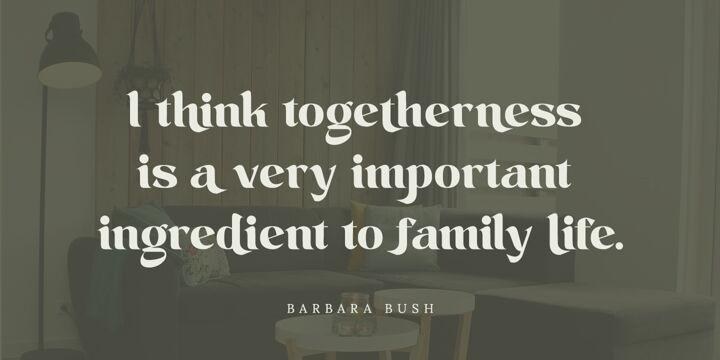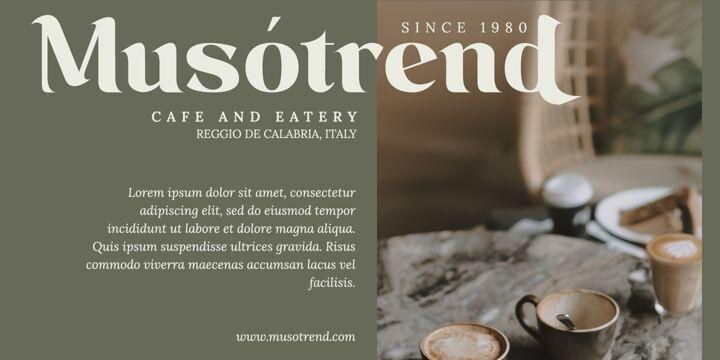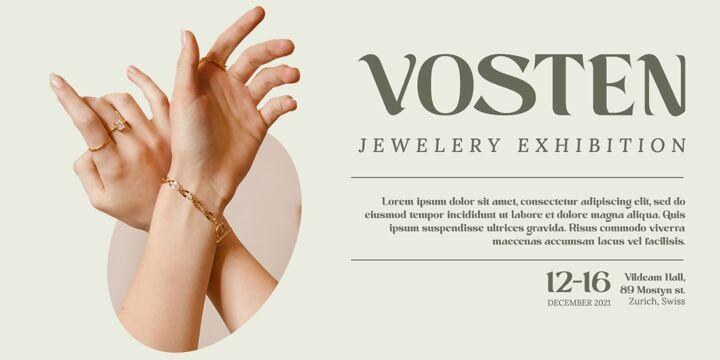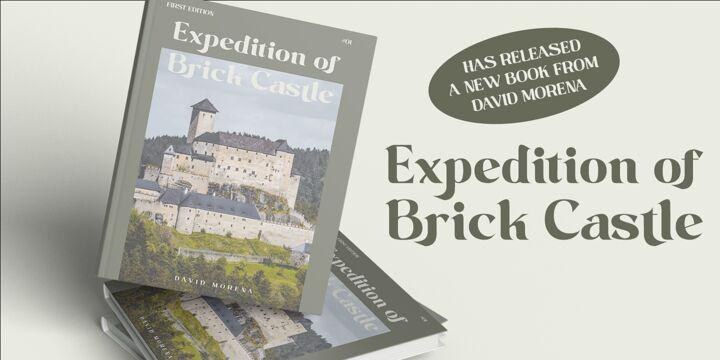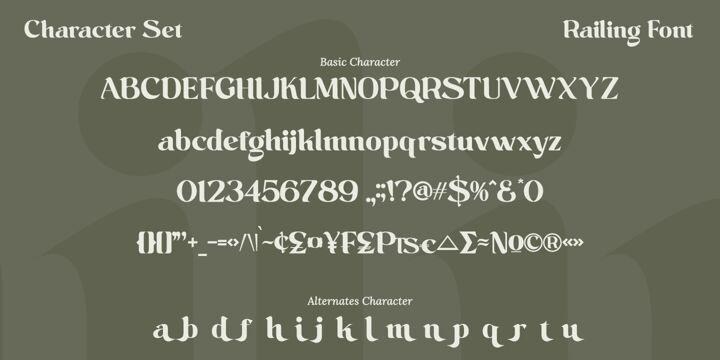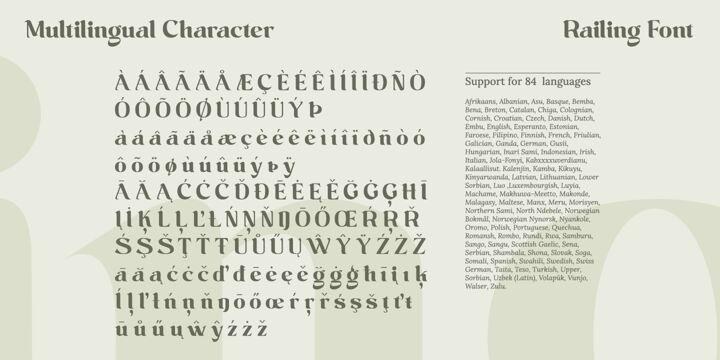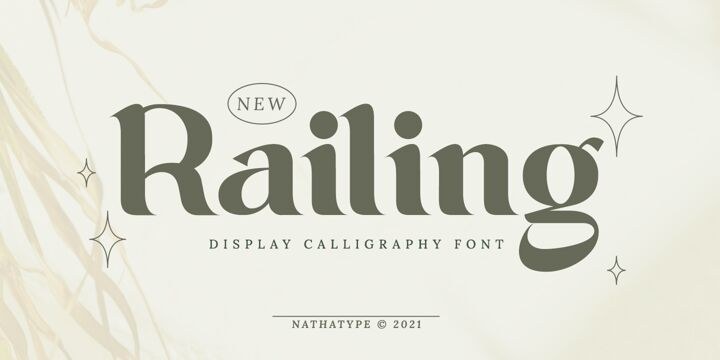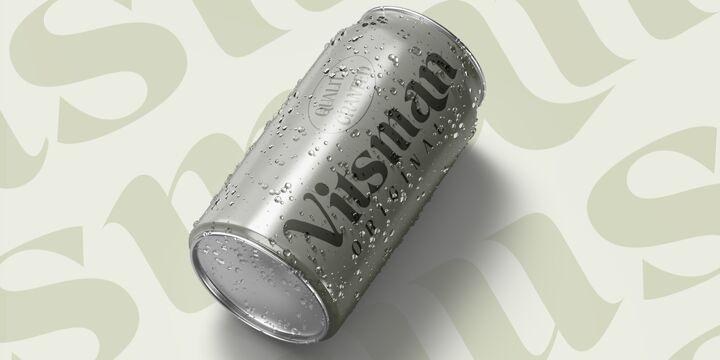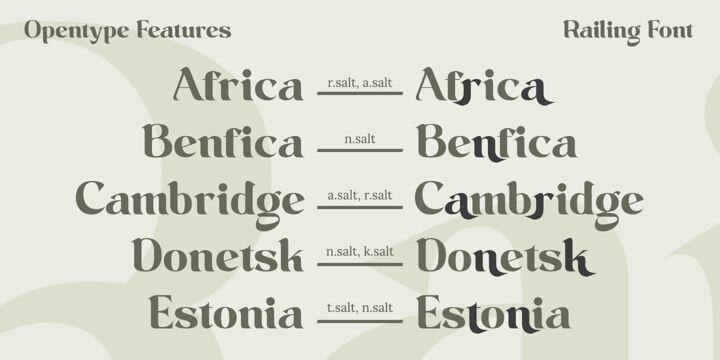
Railing Font
Are you looking for a display font? Do you dream of creating headings that stand out and inspire creativity, imagination, and endless fun? Wait no more, we will give you the best choice. Railing is a gorgeous font, designed with a modern vibe. This font is perfect for anything simple and direct. Every stroke and curve was created to entice happiness and elegance. A real head-turner for your presentation, designs, branding, quotes, invitation, website illustrations, and much more.
Railing Font is a Display Fonts font that brings a professional and versatile look to your projects. Are you looking for a display font? Do you dream of creating headings that stand out and inspire creativity, imagination, and endless fun? Wait no more, we will give you the best choice.